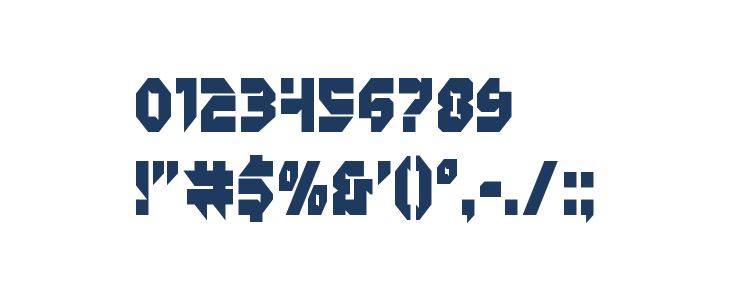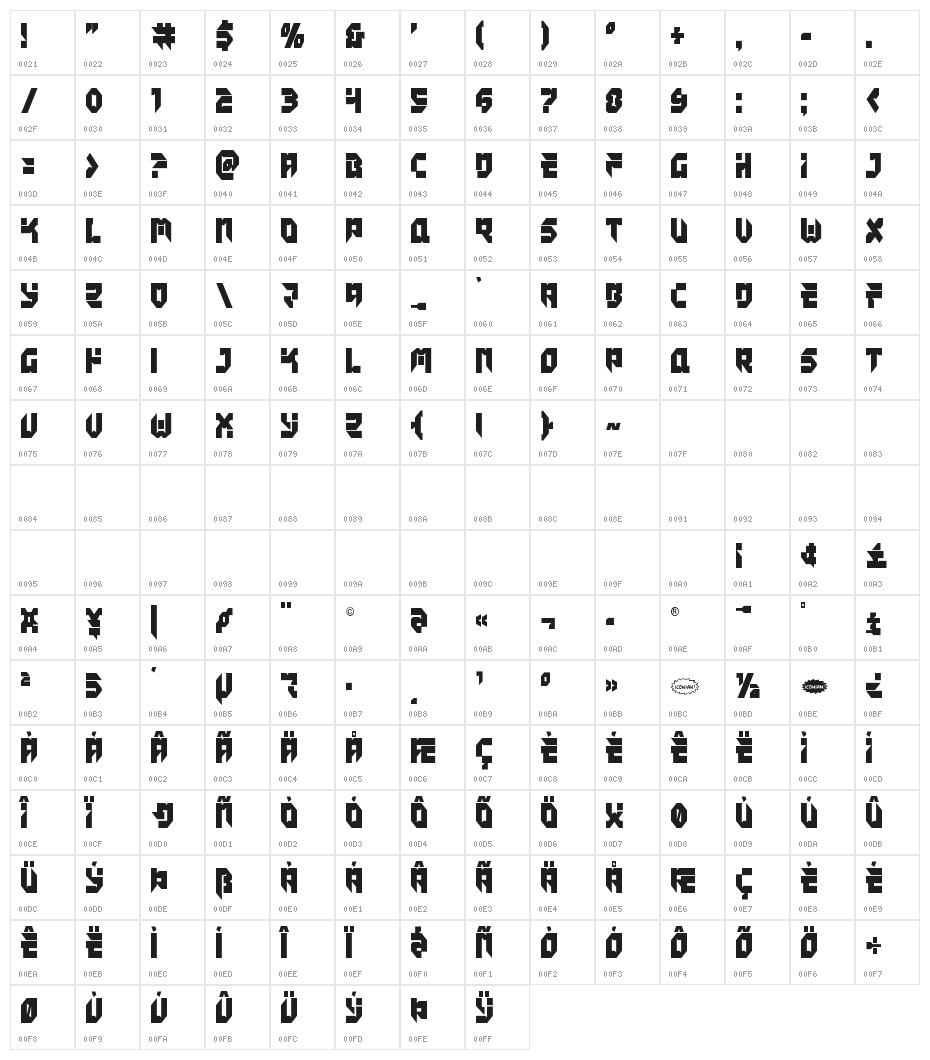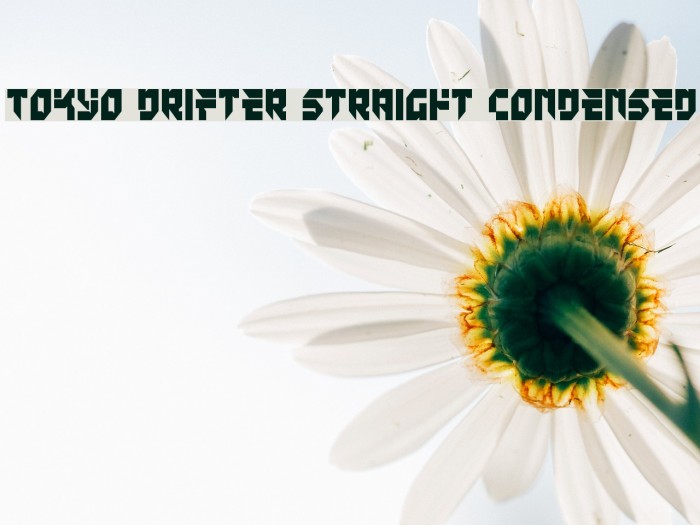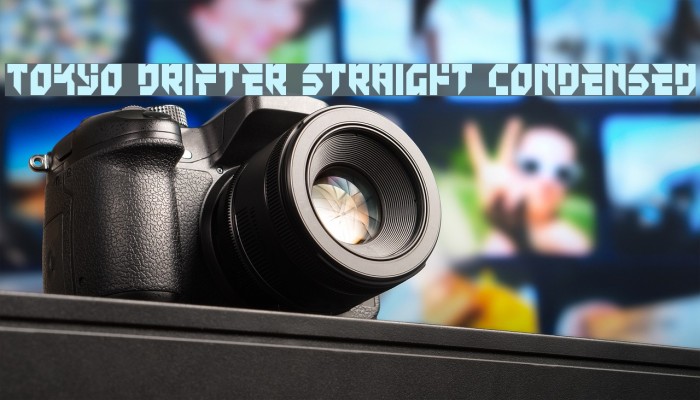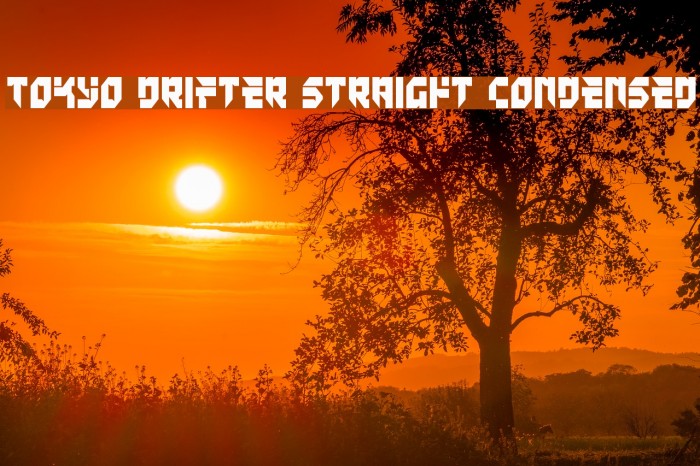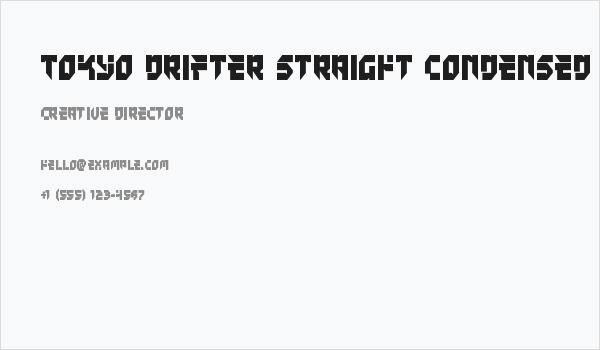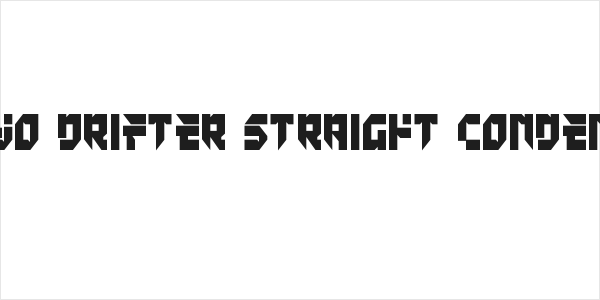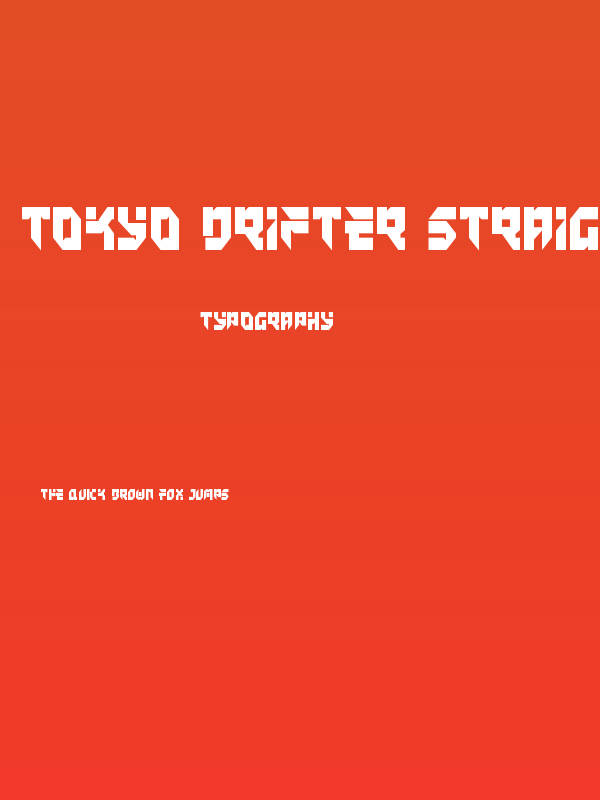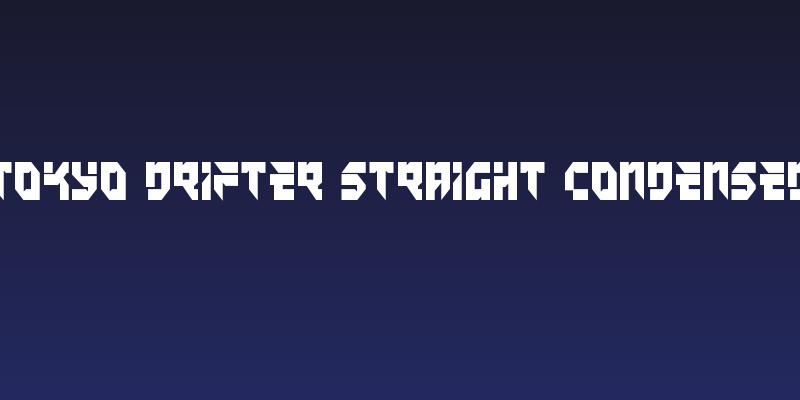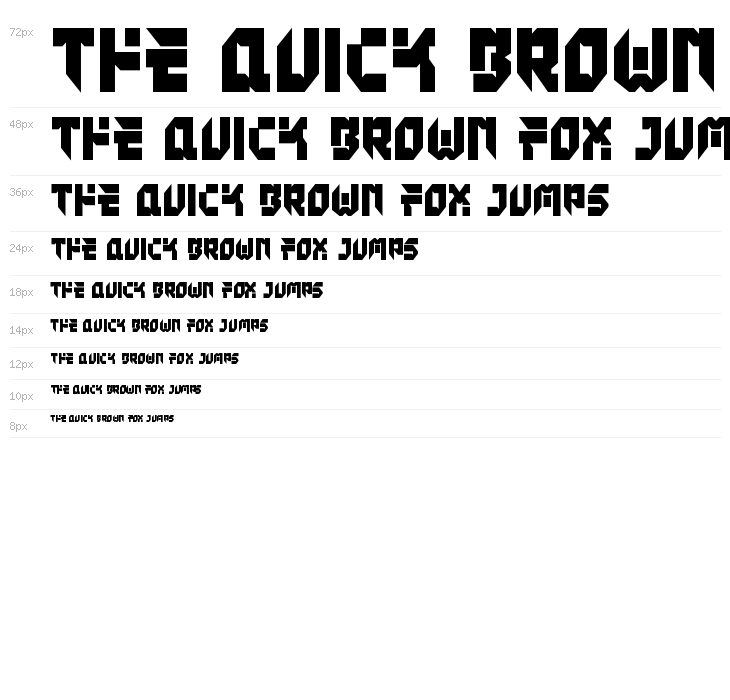
Tokyo Drifter Straight Condensed Font
Tokyo Drifter Straight Condensed Description
This font features a bold, geometric design with sharp angles and a condensed structure. The characters are constructed with straight lines and angular cuts, creating a futuristic and industrial appearance. The uppercase letters are particularly striking, with a uniform height and width that enhances the condensed feel. The numbers and special characters maintain the same angular and bold style, ensuring consistency throughout the typeface. This font's unique design makes it stand out, offering a modern and edgy aesthetic.